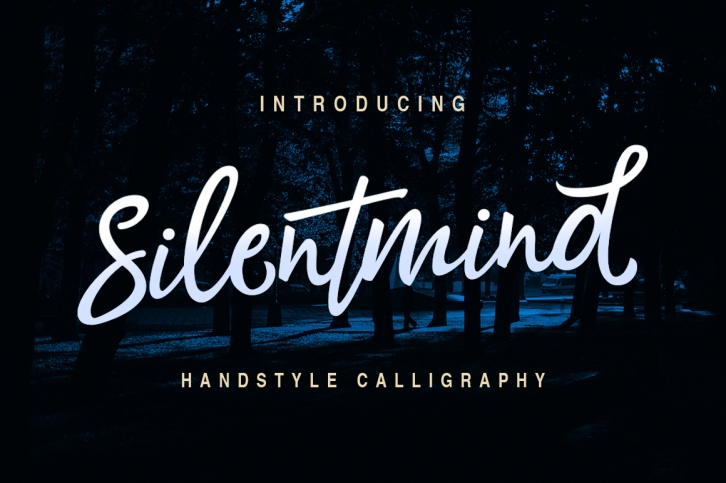
Silentmind Typeface is a great font that was designed by Riverside Digital Type Foundry. Imagine the amount of combinations you can create using this font! The archive is 18.24 MB and it was released on April 29, 2017. Silentmind Typeface looks beautiful on wedding invitations, greeting cards, logos, posters, labels, t-shirt designs, logos, business cards and is perfect for use in ink or watercolor works, fashion, magazines, packaging and food menus, children's books and more!